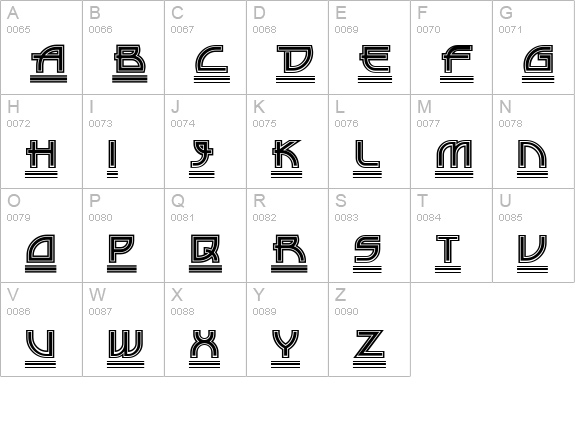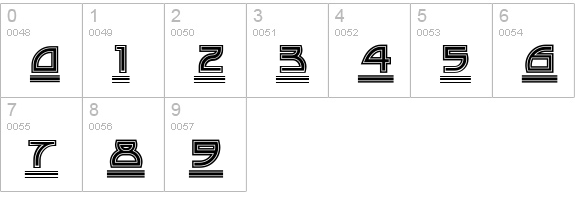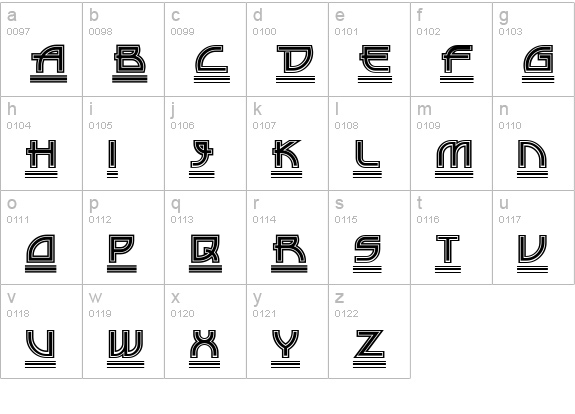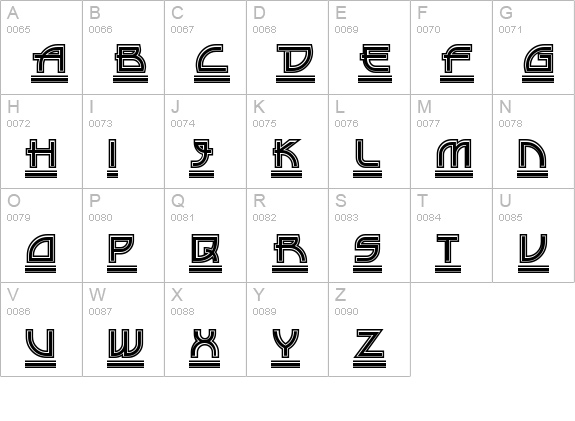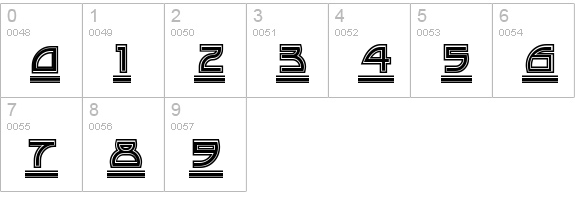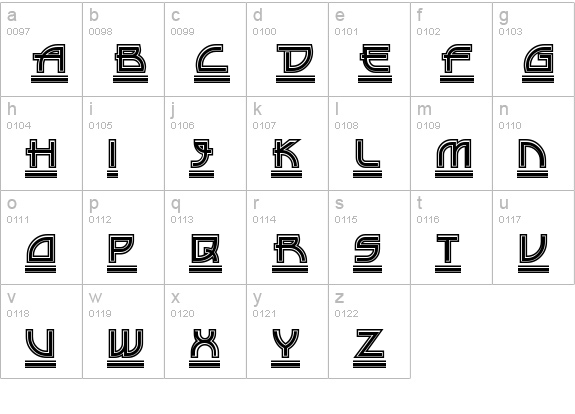
Drive Thru Capital Font Details
Drive Thru Capital font is a sleek and modern typeface that exudes professionalism and innovation. Its clean lines and sharp edges make it perfect for a wide range of design projects, from business cards to websites. The font's bold and confident appearance is sure to make a statement and capture the attention of your audience. What sets Drive Thru Capital font apart is that it is available for free download at FontsMarket.com. This means that you can easily access this high-quality font without any cost, making it a valuable resource for designers and creatives looking to enhance their work without breaking the bank. Don't miss out on the opportunity to add Drive Thru Capital font to your font library today and take your designs to the next level.